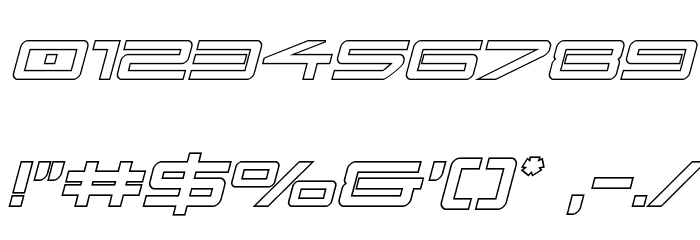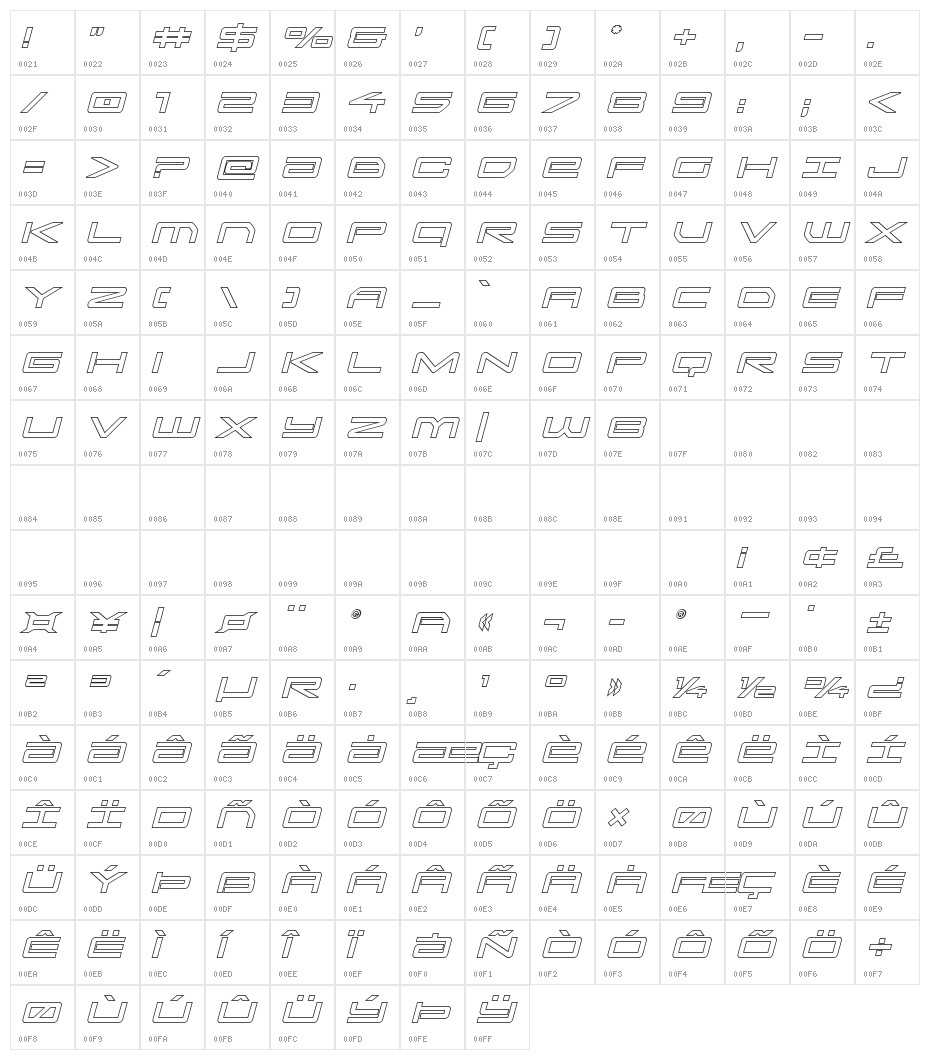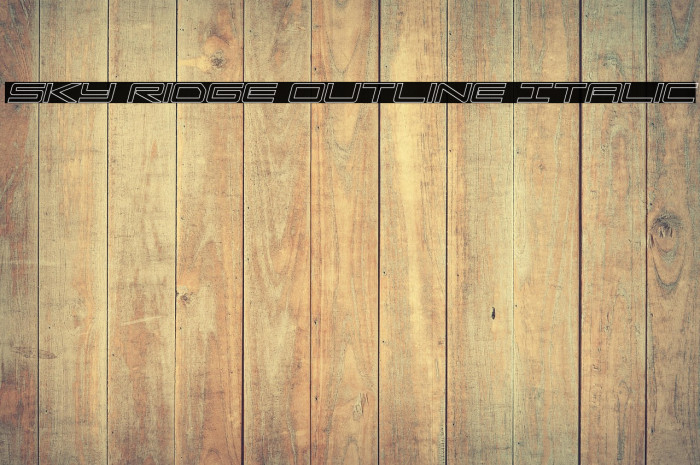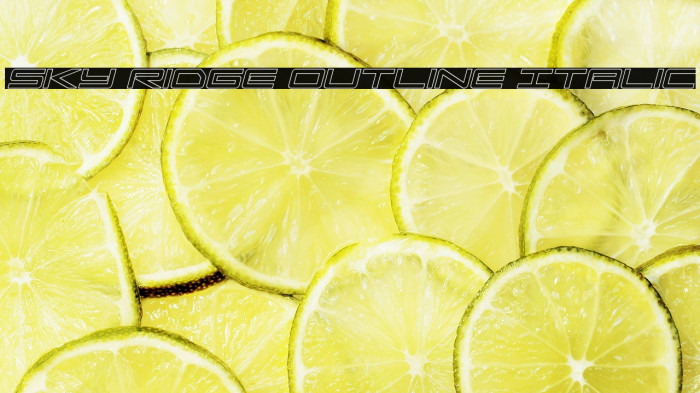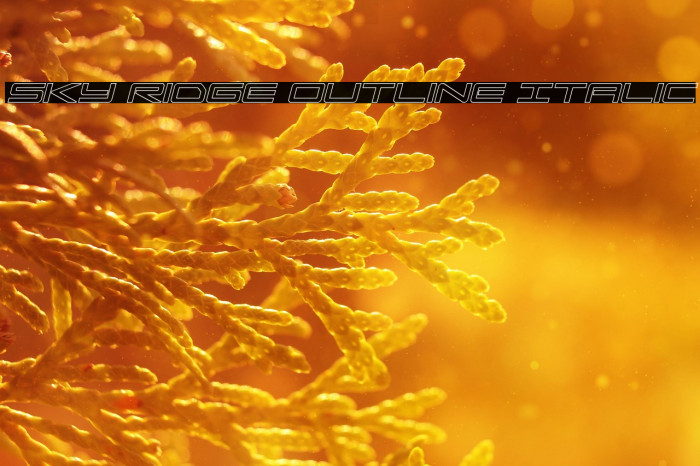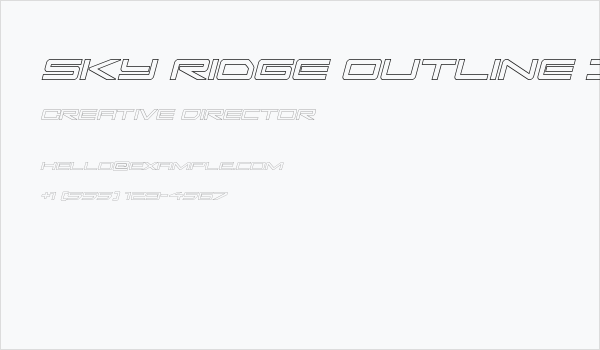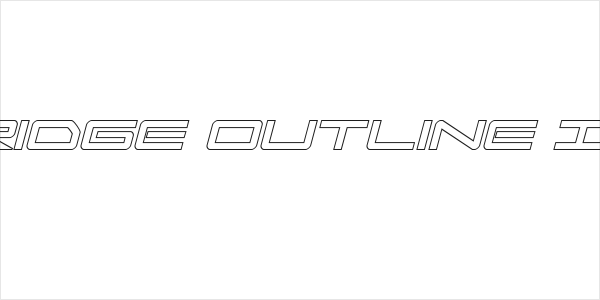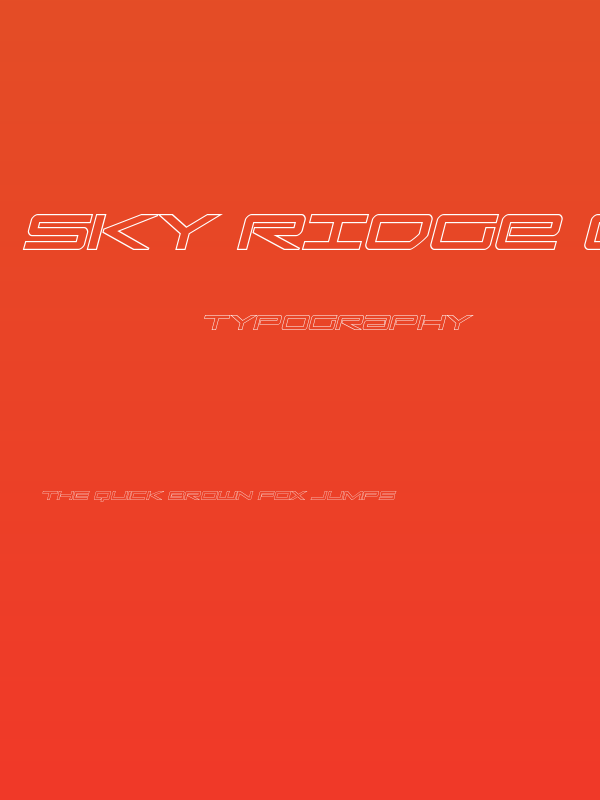
Sky Ridge Outline Italic Font
Sky Ridge Outline Italic Description
This font features an outline style with a futuristic and geometric aesthetic. The characters are italicized, giving them a dynamic and forward-leaning appearance. The design is clean and structured, with sharp angles and straight lines that create a sense of precision and modernity. The uppercase and lowercase letters maintain a consistent style, while the numerals and special characters complement the overall look. This font is ideal for projects that require a contemporary and tech-inspired feel.
| Proposed Projects | Ideal for tech branding, sci-fi posters, video game titles, and modern digital interfaces. |